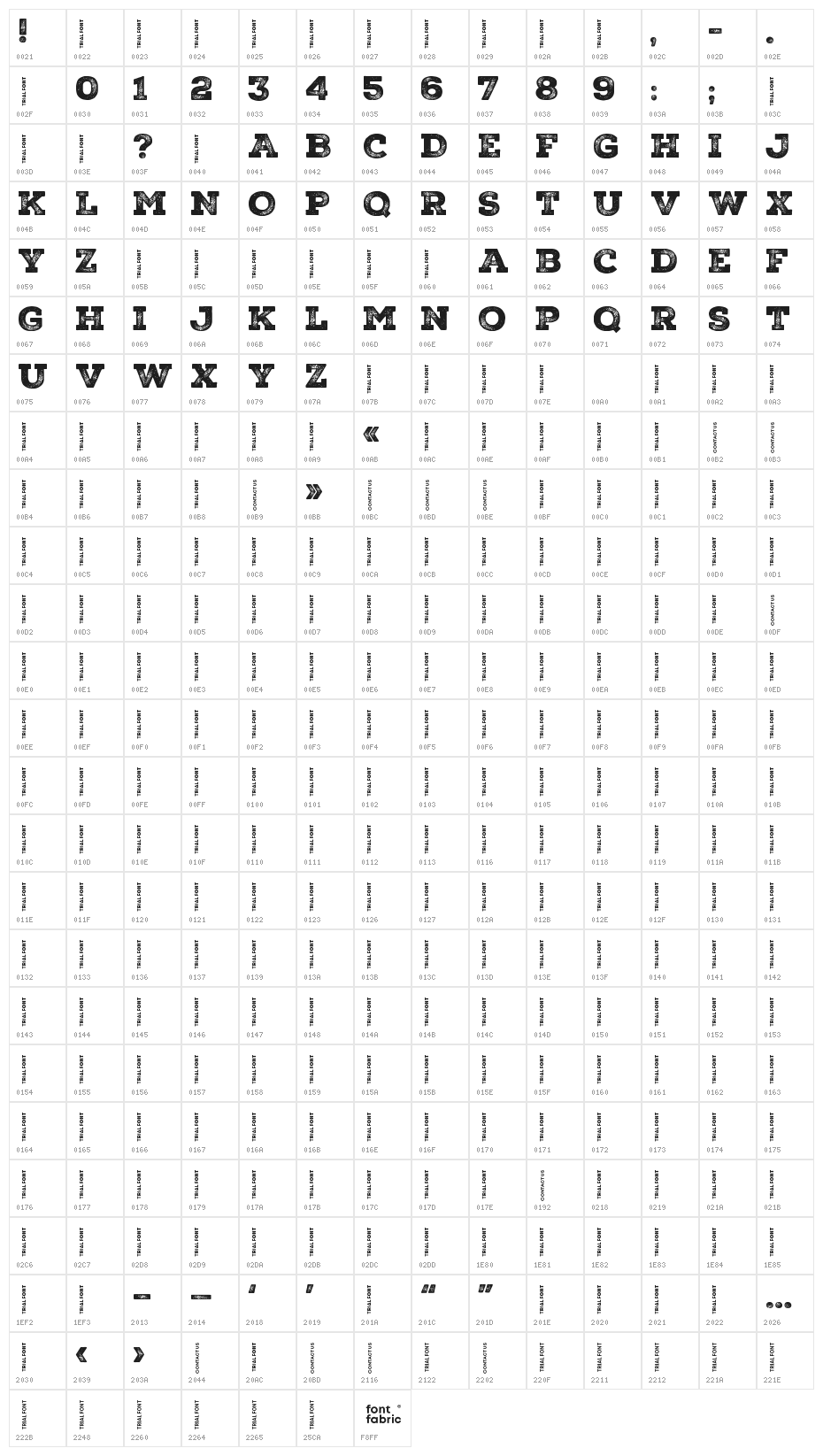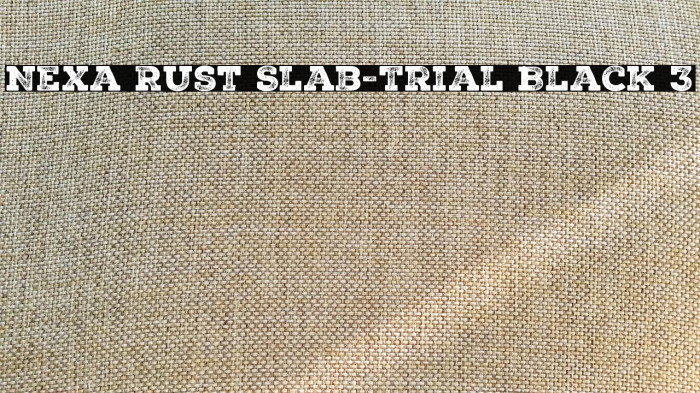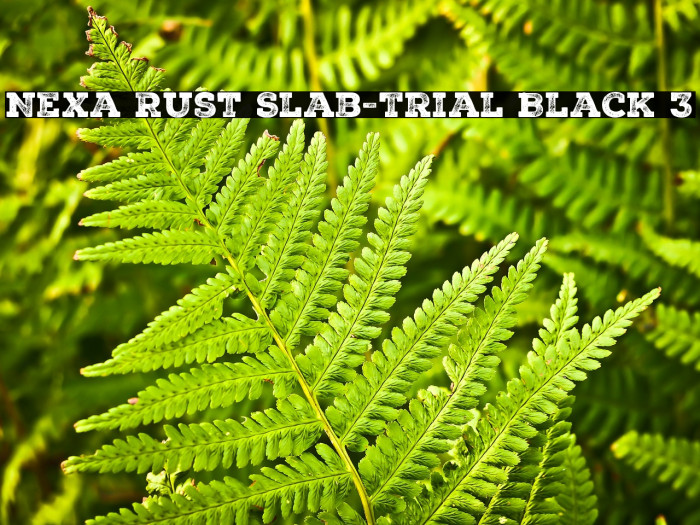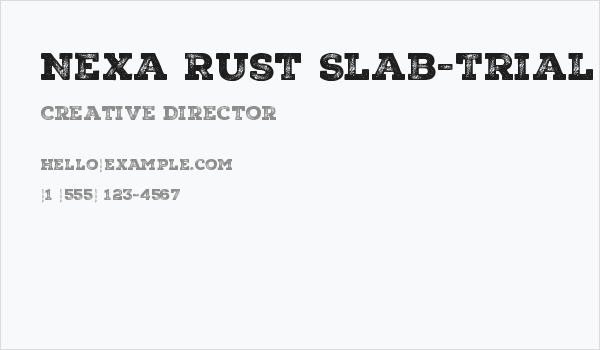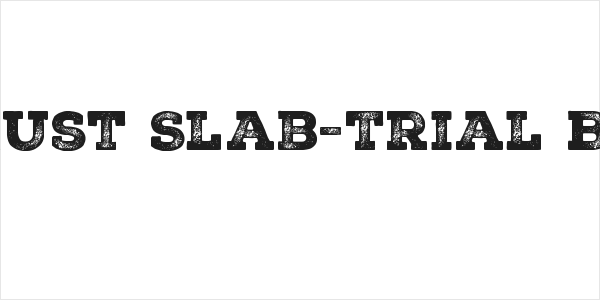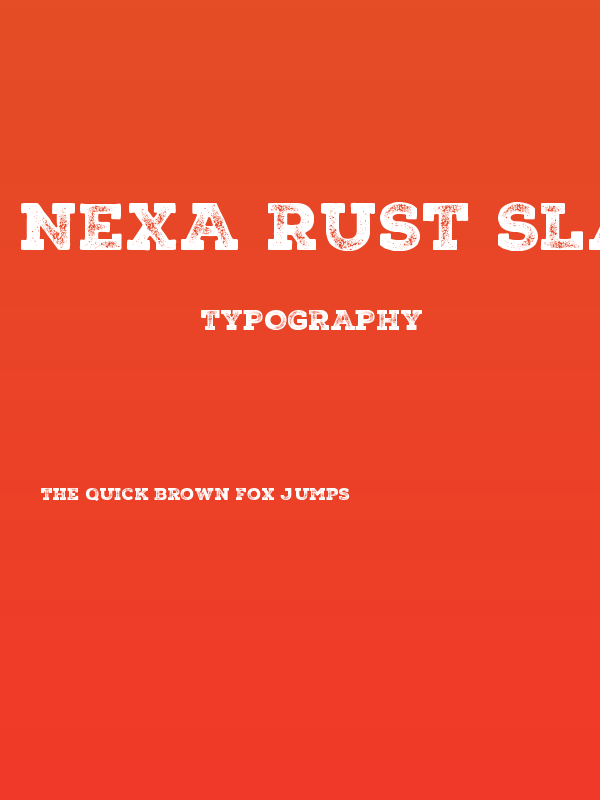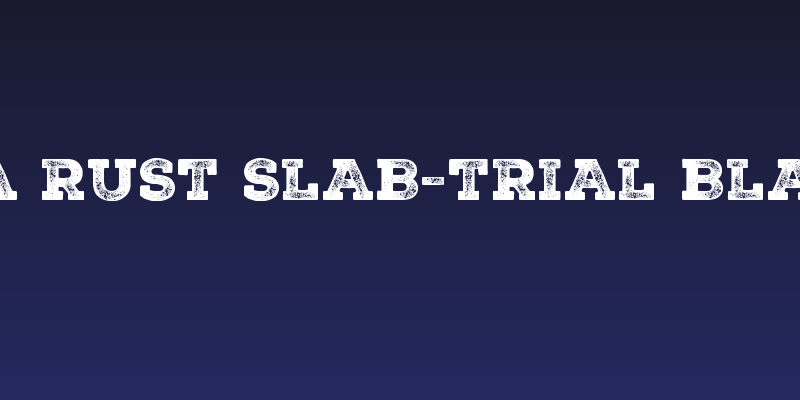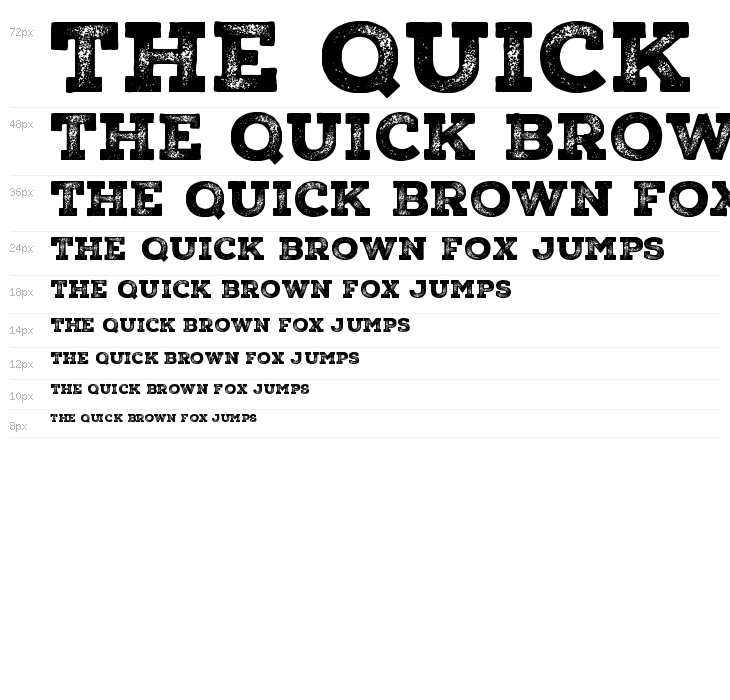
Nexa Rust Slab-Trial Black 3 Font
Nexa Rust Slab-Trial Black 3 Description
This font features a bold, rugged slab serif style with a distressed texture that gives it a vintage, worn appearance. The characters are thick and sturdy, with a strong presence that makes them stand out. The distressed effect adds a layer of depth and character, making it ideal for projects that require a rustic or industrial feel. The uppercase letters are uniform in height, while the numbers and special characters maintain the same bold, textured style. This font is perfect for creating impactful headlines, posters, and branding materials that need a touch of grit and authenticity.
Overall StyleVintage
Proposed ProjectsIdeal for vintage-themed posters, branding, packaging, and headlines that require a bold, rustic look.